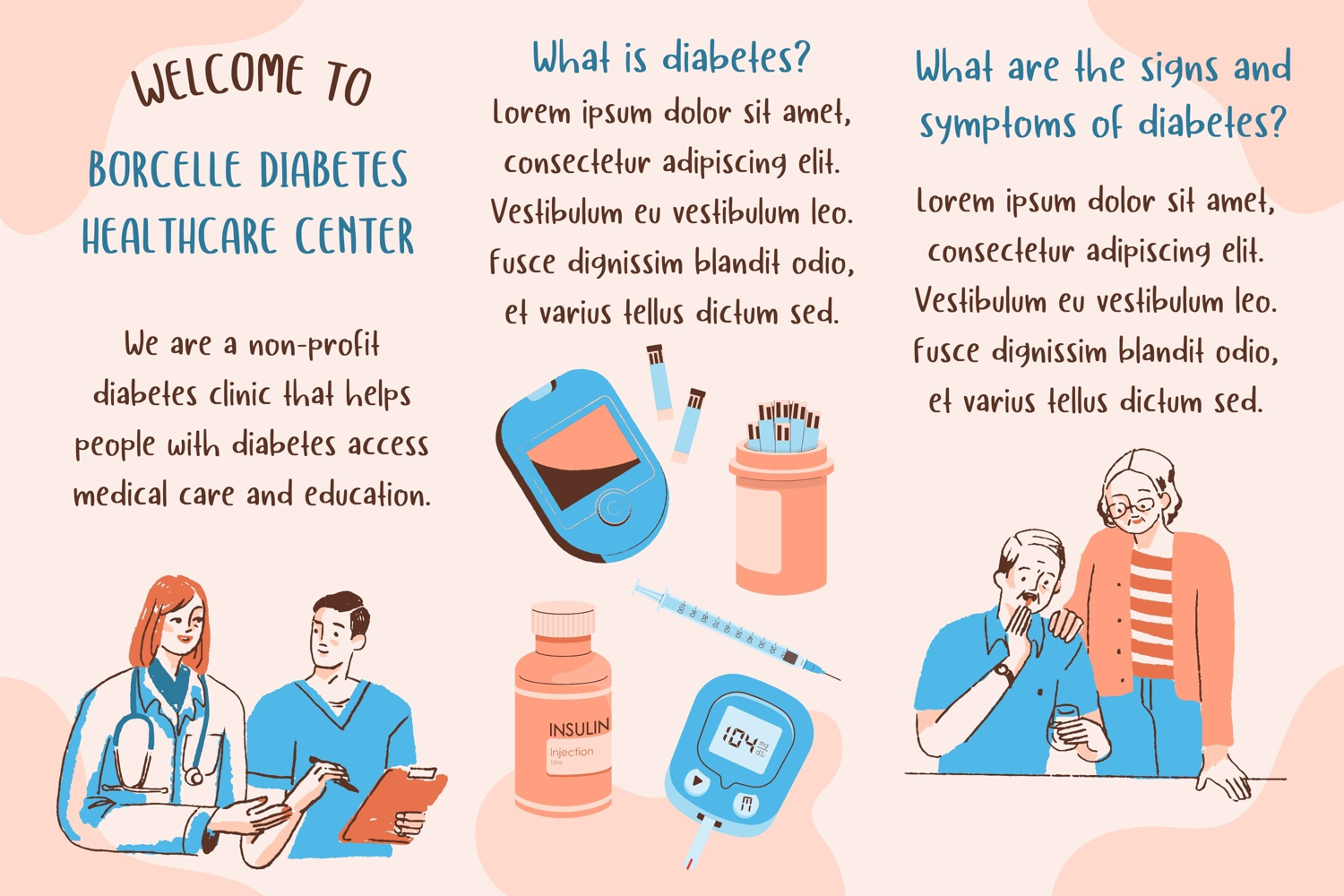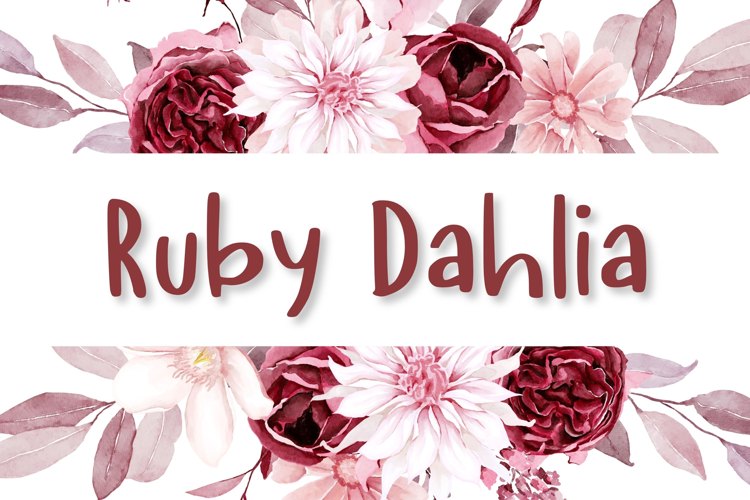
Immerse yourself in the delightful charm of a whimsical handwriting font - perfect complement to your creative projects, arts and crafts, and invitations. Let the captivating allure of our endearing font breathe life into your designs, lending them a touch of artistic intimacy and playfulness. With design as adorable as a handwritten love-note, this charming font is the ideal instrument to express creativity and grace, making it a delightful addition to any artistic endeavor. Whether you're hosting an event or unraveling your imagination on a canvas, our beguiling font stands as a testament to the charm of handwritten love.